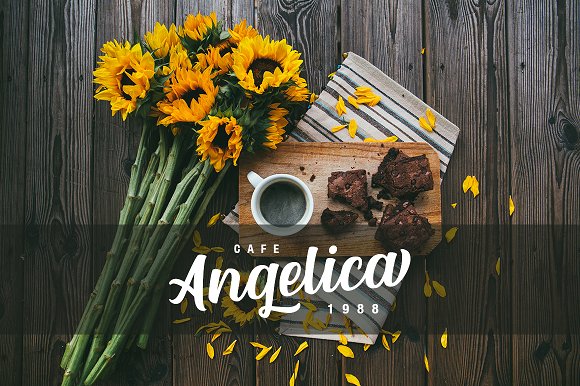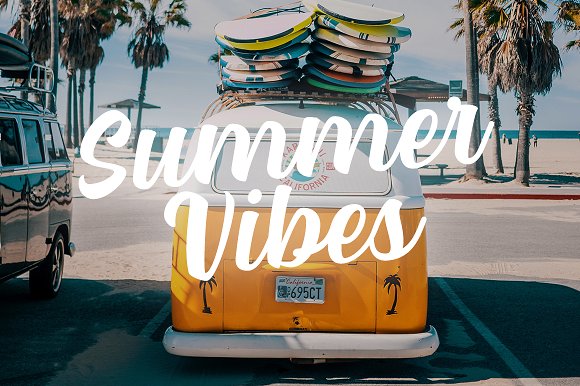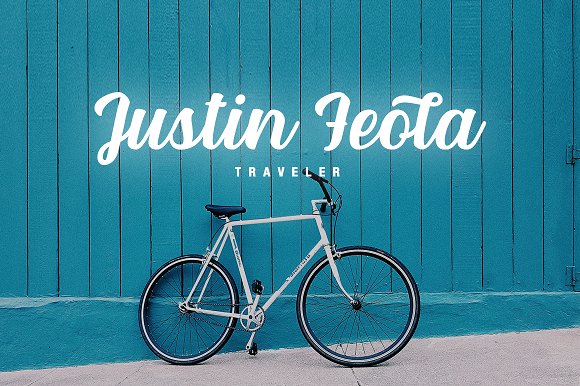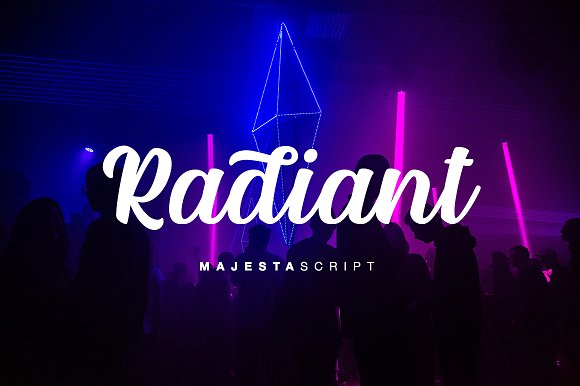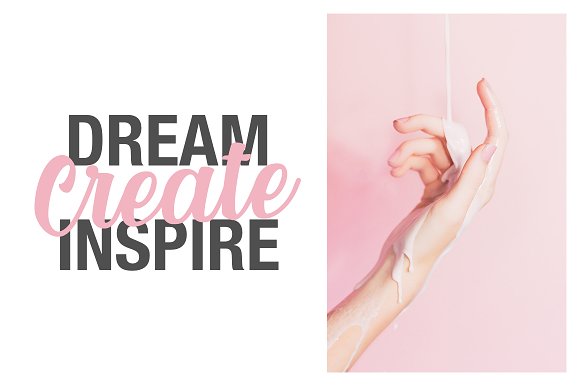
Majesta Font
Majesta
My new script font. Very sturdy and graceful, strong and neat. It is made of contrasts. And the icing on the cake – the swirls and alternative ending letters.